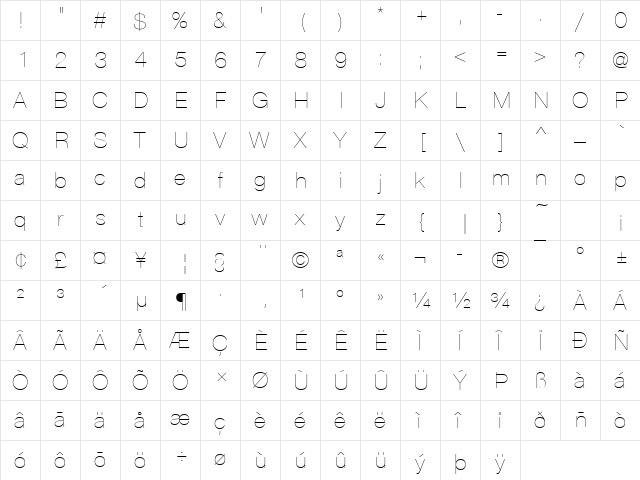
Nimbus Sans Becker DUltLig Regular
Design Context for Nimbus Sans Becker DUltLig Typeface
Nimbus Sans Becker DUltLig offers clean, dependable letterforms without strong stylistic allegiance, making it a practical choice for designers who need flexibility.